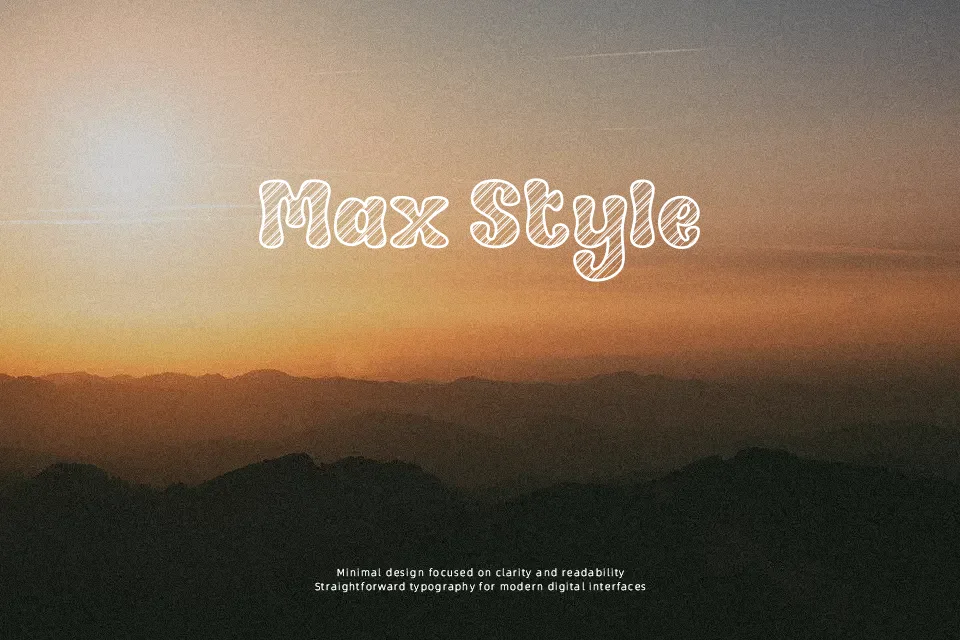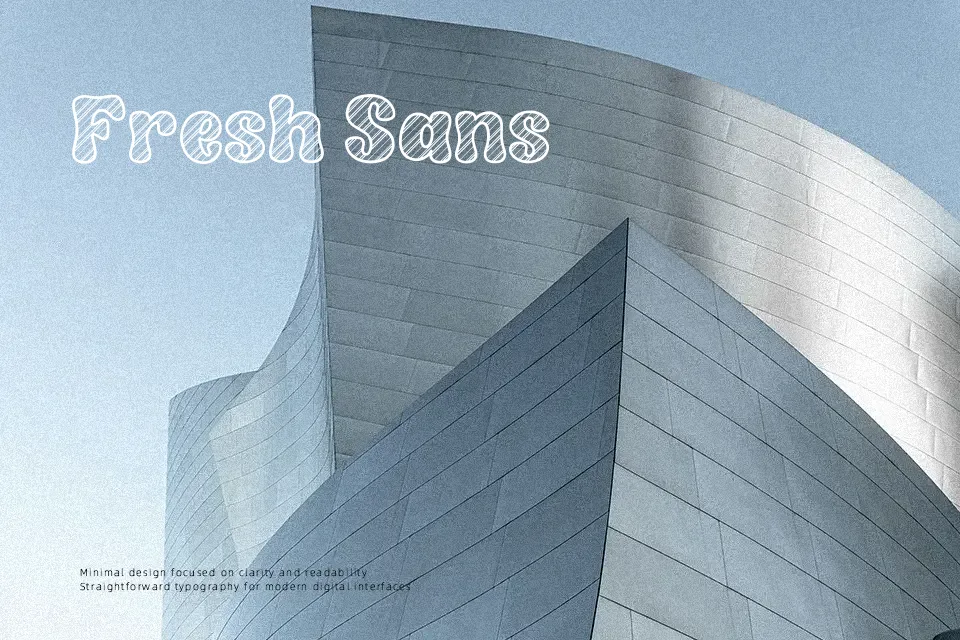
Chalkboard Font
Chalkboard Font is a bold display typeface defined by rounded contours, heavy stroke weight, and distinctive groovy curves that produce a playful rhythm. The letterforms feature thick outer shapes with condensed negative space, creating substantial visual presence across uppercase and lowercase characters. Moderate character spacing prevents adjacent glyphs from colliding while keeping lines visually compact and unified. The typeface functions effectively in large-scale applications such as festival banners, creative merchandise, and standout package titles. However, the thick strokes and constricted counters reduce legibility in extended text settings. Dense paragraphs quickly become difficult to decipher at small sizes.
Best For: retro poster headlines,product packaging titles,creative apparel prints,social media banners
Not Ideal For: long body text,mobile application menus,dense corporate documents,small caption labels
Perfect for headline, logo, and packaging, with a bold and decorative style.